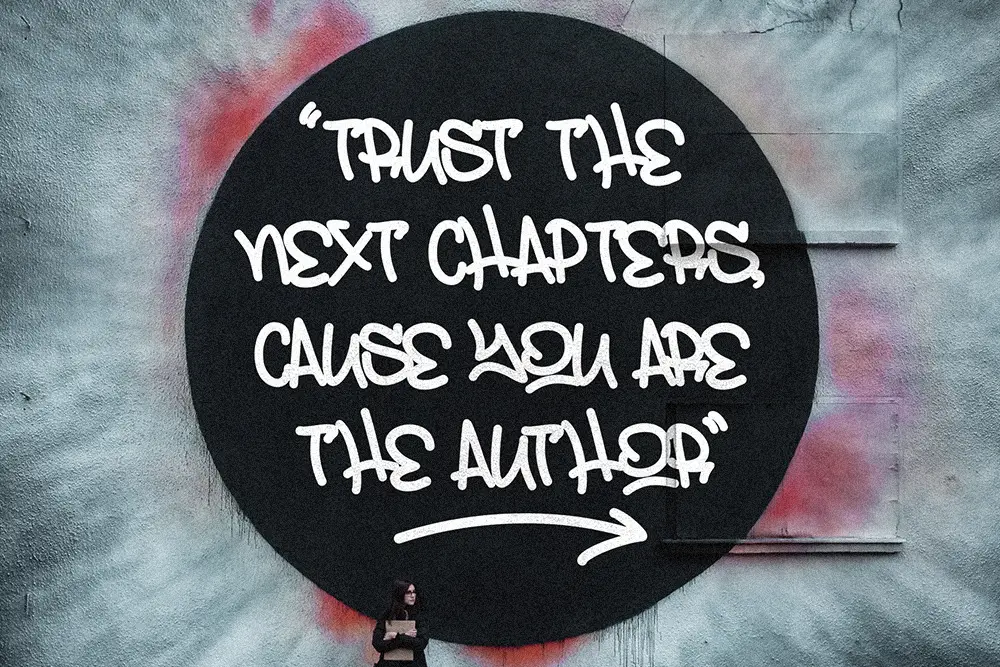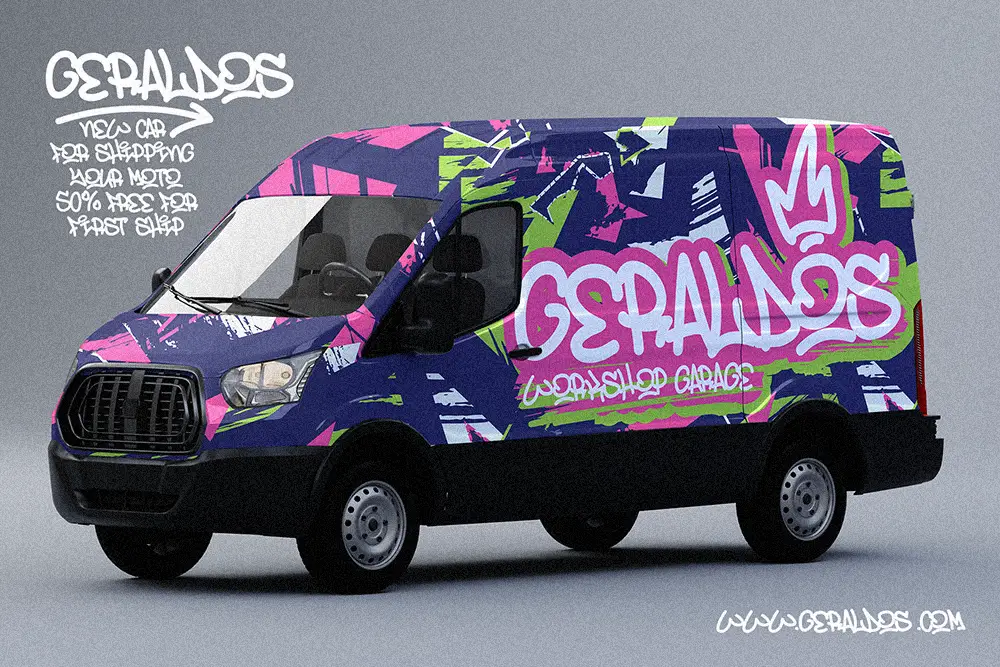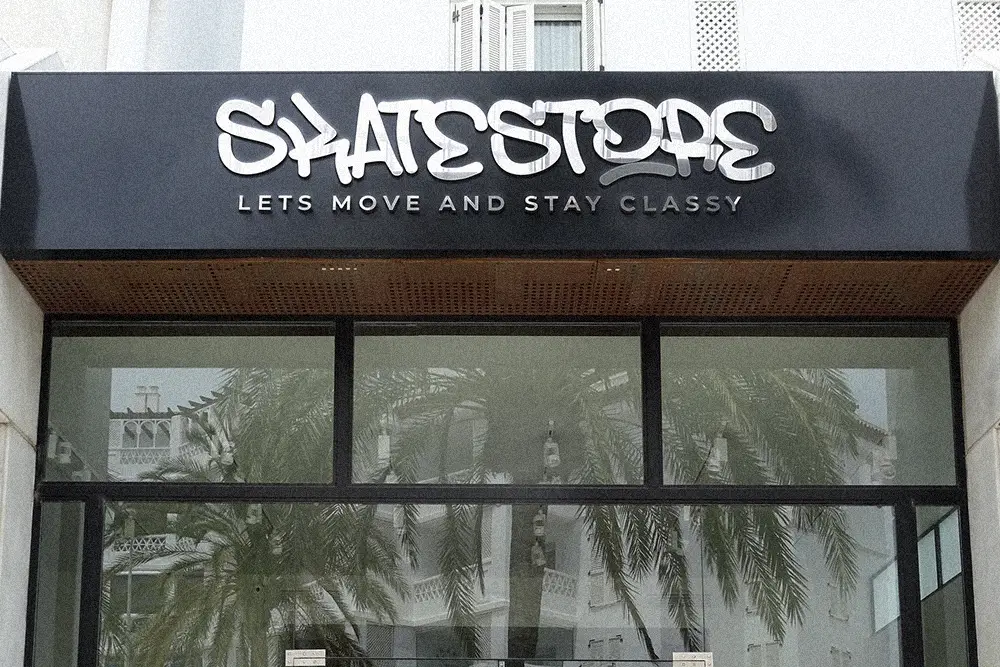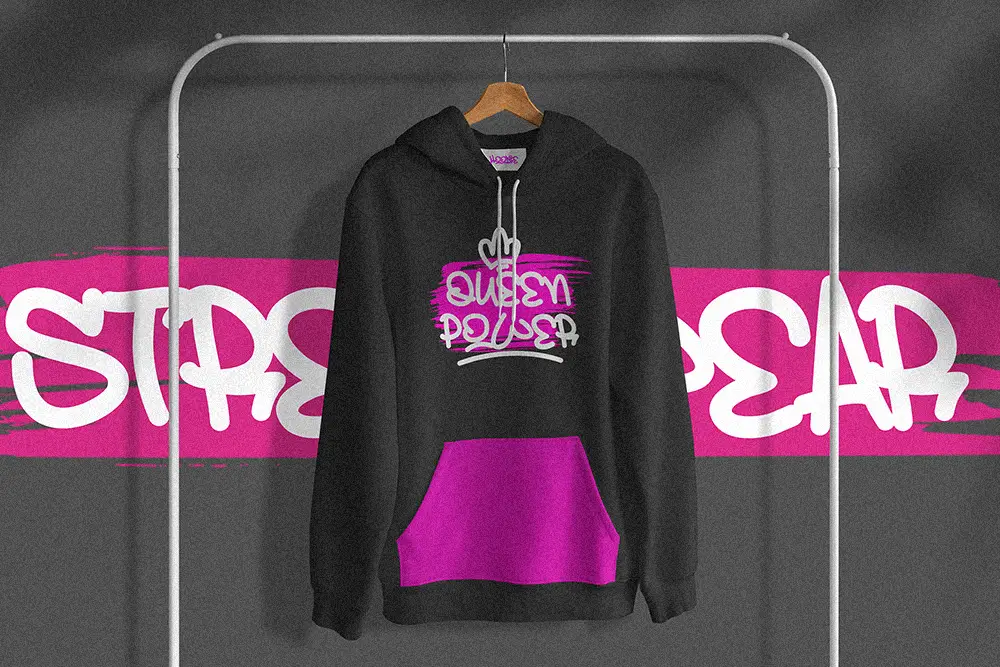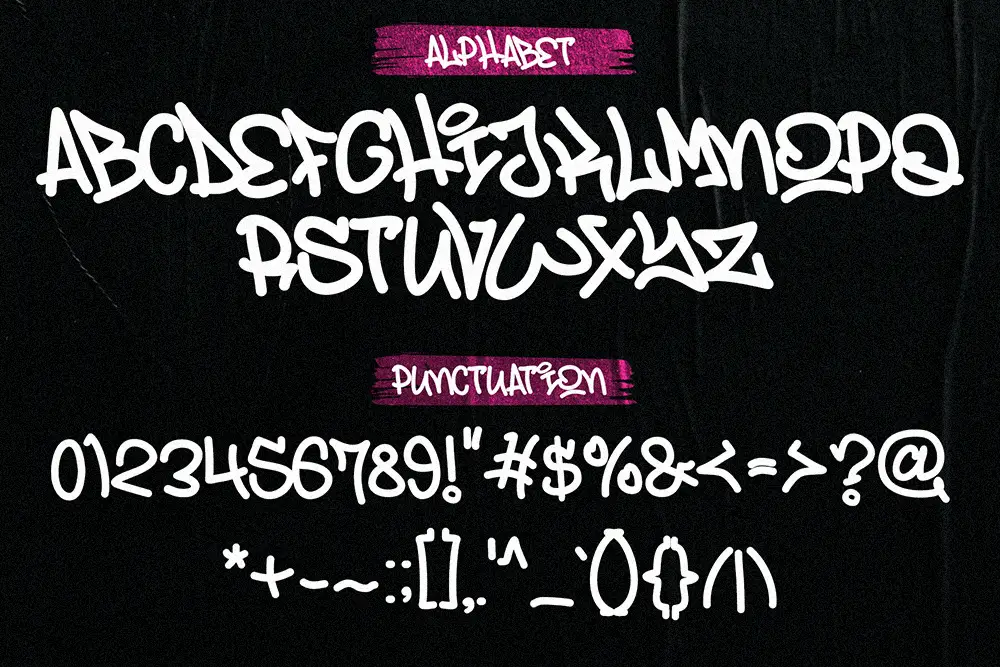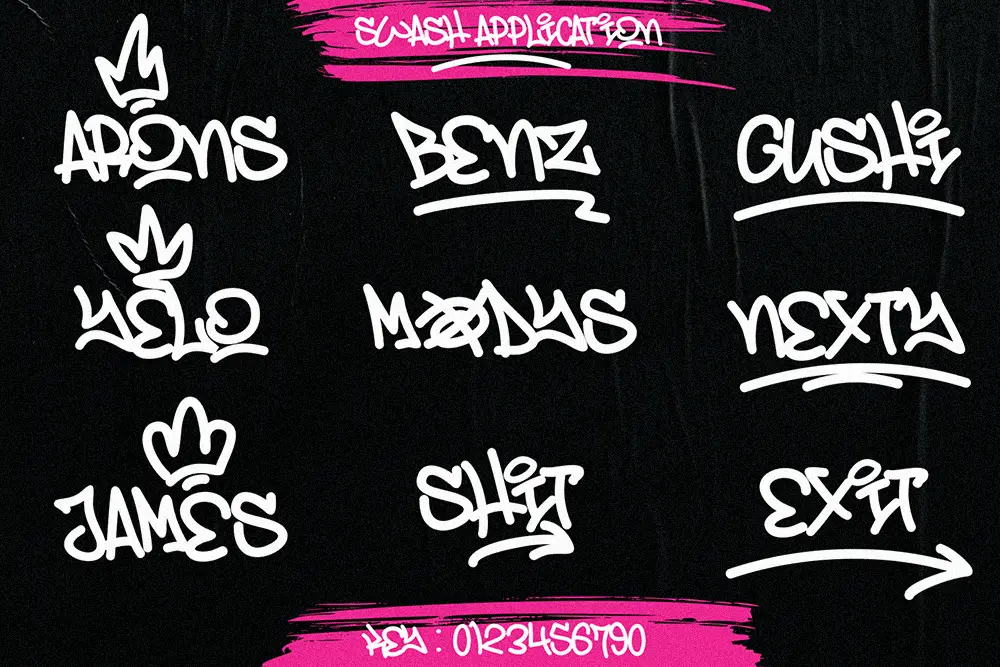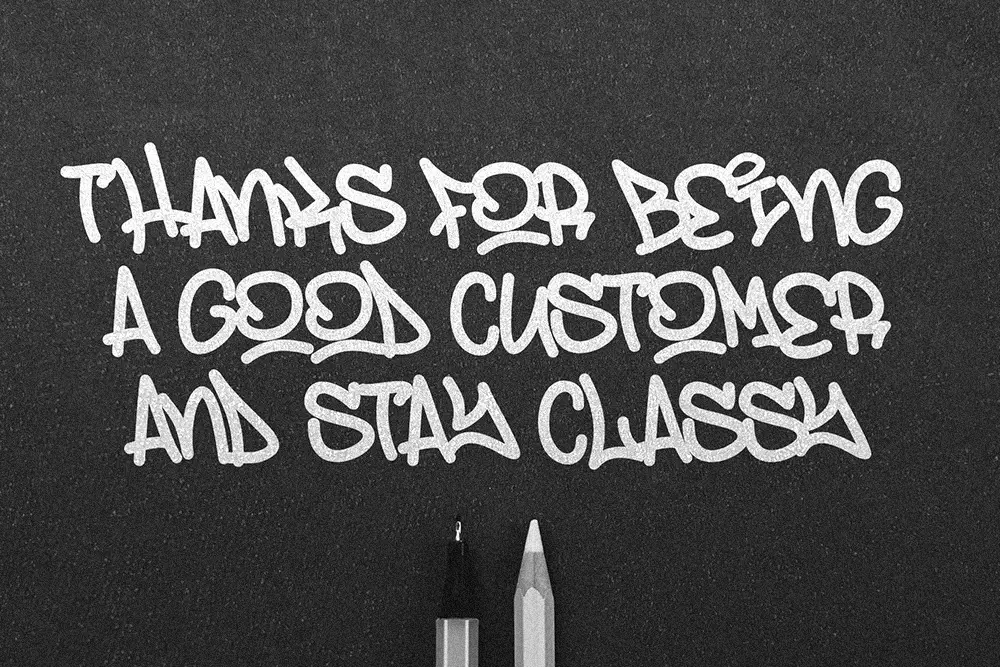
Street Rats – Monoline Graffiti Font for Bold Urban Design
Typography can capture rebellion, movement, and identity like no other element in design. Street Rats – Monoline Graffiti Font was built for designers who want to inject raw urban energy into their projects. With its bold uppercase forms and authentic monoline graffiti strokes, this monoline graffiti font brings the streets directly into your posters, logos, and branding.
From music events to apparel branding, Street Rats embodies the spirit of freedom and self-expression. It is more than just letters—it’s a creative statement.
Monoline Graffiti Font with Bold Uppercase
What makes Street Rats unique is its bold uppercase design combined with monoline consistency. Unlike overly complex graffiti fonts, this monoline graffiti font keeps lines clean while maintaining a raw, hand-drawn street style.
Designers love the balance: it’s edgy enough for graffiti-inspired projects yet structured enough to keep your message readable. Whether you’re creating album covers, urban posters, or branding for youth culture, Street Rats delivers authenticity.
Key Features of Street Rats – Monoline Graffiti Font
To show its strength, here are the standout features of Street Rats – Monoline Graffiti Font:
• Uppercase: Full uppercase set designed for bold urban expression.
• Monoline Style: Clean consistent strokes that mimic authentic graffiti.
• Urban Graffiti Vibe: Perfect for posters, music branding, street culture, and youth design.
• High Readability: Keeps clarity even in large display sizes.
Why Designers Love Street Rats
This font has quickly become a favorite among creatives because it captures the core essence of graffiti culture. Here’s why designers consider it one of the best monoline graffiti fonts available:
• Authentic Energy: Raw but legible graffiti-inspired strokes.
• Versatility: Works across posters, logos, branding, and digital media.
• Pairing Power: Looks stunning when paired with strong sans-serif or other graffiti fonts.
• Professional Build: Designed with clean vector precision, making it print and web ready.
Street Rats for Logos and Branding
Logos need to be memorable and powerful. Street Rats makes it possible to design branding that screams confidence and creativity. This monoline graffiti font is ideal for brands tied to urban lifestyle, music, or creative industries.
When paired with Bolde Powerful Sans Serif, the result is a perfect balance between graffiti freedom and modern professionalism.
Street Rats for Posters and Advertising
Posters are where graffiti fonts shine. Street Rats is a monoline graffiti font made to grab attention at a glance. Its uppercase forms dominate layouts, whether for event promotions, street campaigns, or creative advertising.
Mix it with Back Wild Fun Graffiti Font to create layered, vibrant designs that feel like they’re straight from the walls of the city.
Street Rats in Urban Culture and Digital Media
The digital age is filled with visuals that compete for attention. Street Rats ensures your designs stand out with raw urban authenticity. As a monoline graffiti font, it works beautifully for YouTube covers, social media graphics, and even merchandise branding.
If you want to take things further, pair it with Jocker Block Strong Brush Font to combine structured graffiti with bold brush energy. The combination creates visuals that feel rebellious yet refined.
• Font Name: Street Rats – Monoline Graffiti Font
• Character Set: Uppercase, Numbers, Punctuation
• Category: Monoline Graffiti Font
• Best Uses: Posters, Logos, Branding, Music Covers, Digital Media, Urban Design
Font Pairing Suggestions
Street Rats shines even brighter when paired with complementary fonts:
With these combinations, your typography becomes a complete urban toolkit.
Why Street Rats is the Monoline Graffiti Font You Need
Graffiti-inspired design is more than just art—it’s a movement. Street Rats embodies this culture in a way that’s both authentic and professional. As a monoline graffiti font, it delivers bold uppercase strokes, readability, and creative flexibility.
By choosing Street Rats, you’re not just picking a font—you’re embracing the spirit of the streets and bringing it into your design work.
Street Rats – Monoline Graffiti Font is the ultimate choice for designers who want their work to feel raw, urban, and full of energy. With uppercase design, multilingual support, and versatile file formats, it’s a complete package for modern creatives.
Pair it with Bolde Powerful Sans Serif, Back Wild Fun Graffiti Font, or Jocker Block Strong Brush Font and create designs that speak with rebellious authenticity.
Bring the streets into your art. Let Street Rats be your monoline graffiti font of choice.